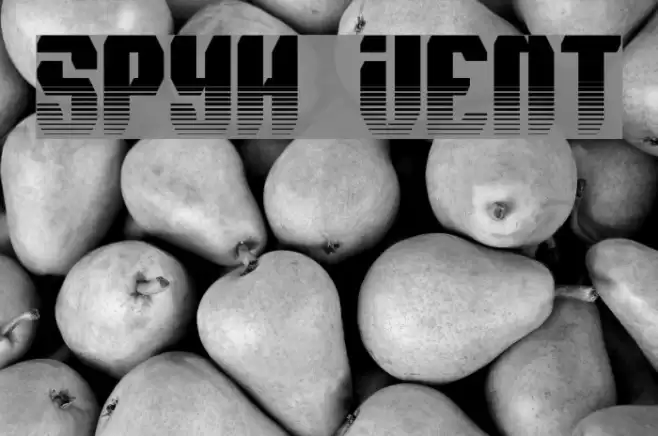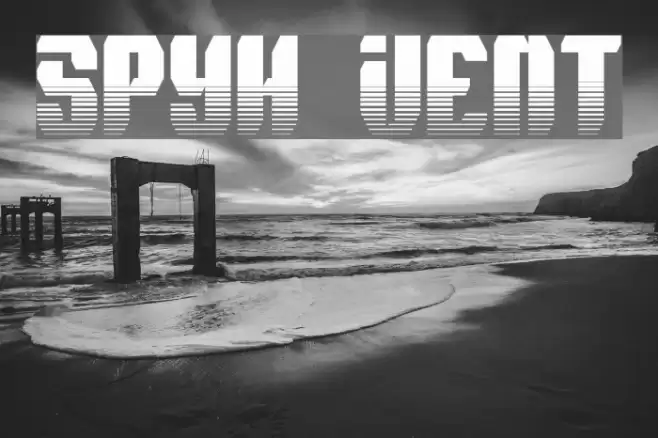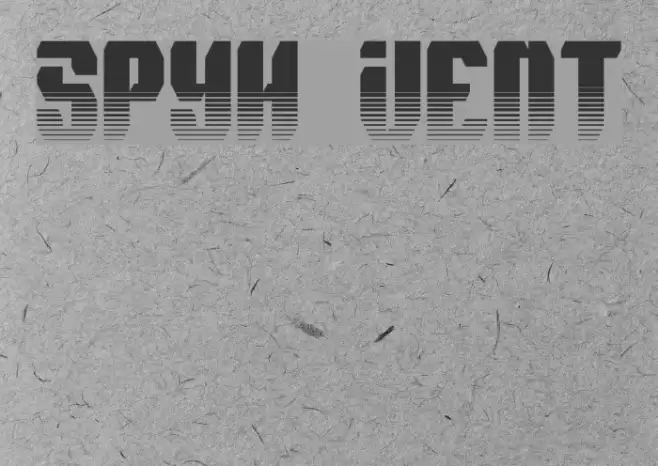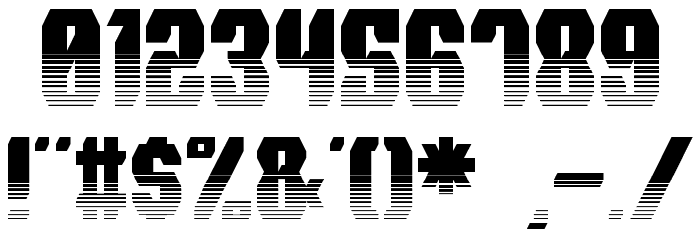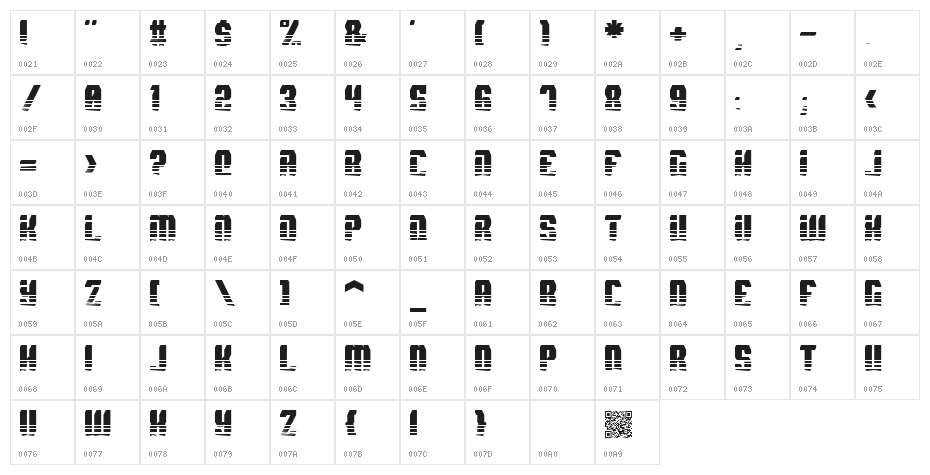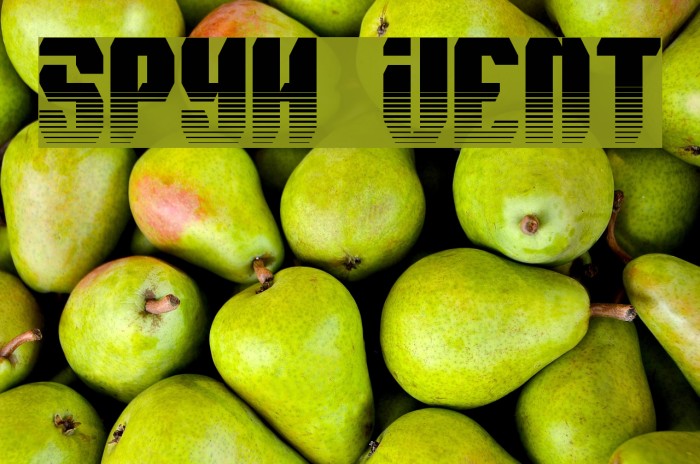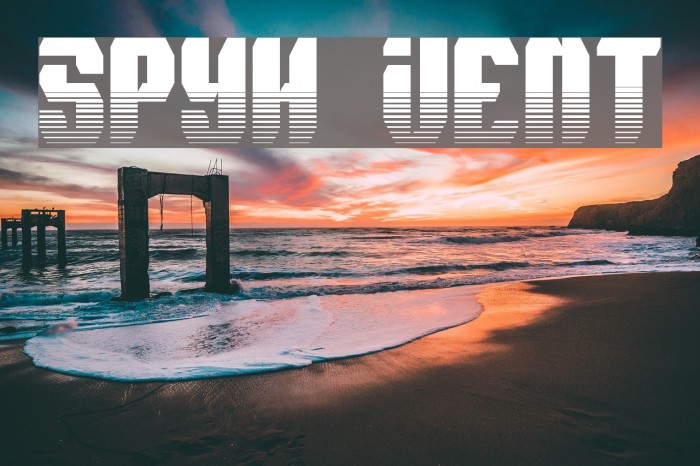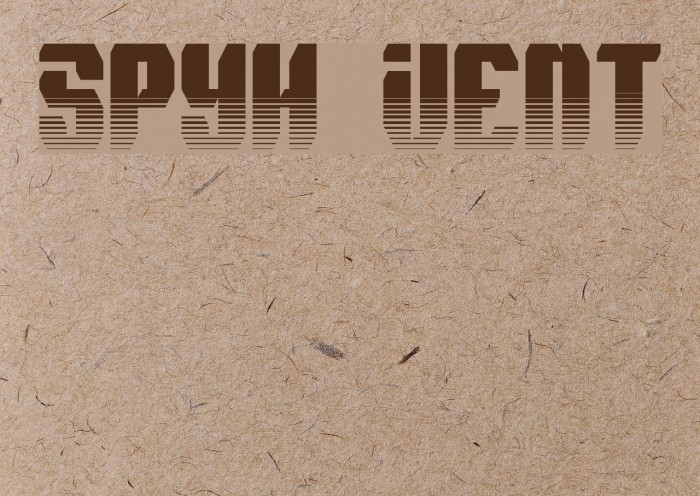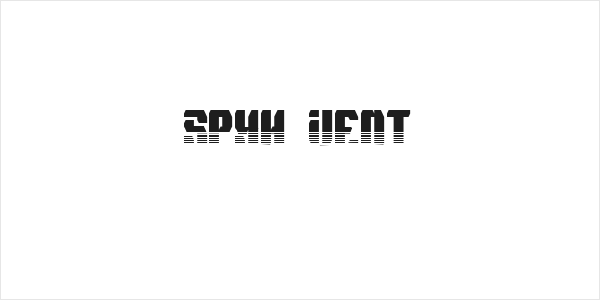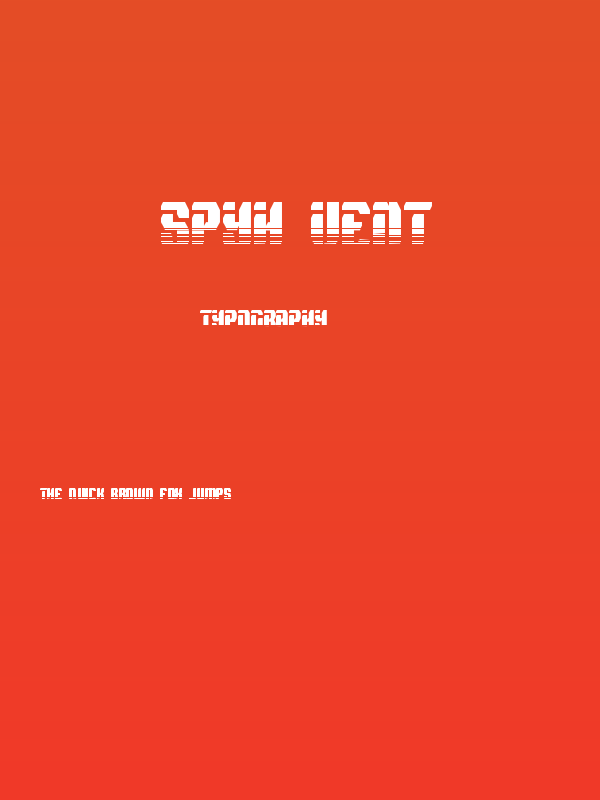
Spyh Vent Font
Spyh Vent Description
This font features a bold, futuristic design with a distinctive striped pattern that creates a sense of movement and depth. The uppercase and lowercase letters, along with numbers and special characters, are constructed with a blocky, geometric style. The horizontal lines within each character give it a unique, dynamic appearance, making it stand out in any design. The font's strong visual impact is ideal for projects that require a modern and edgy look. Its structured form and high contrast between the thick and thin lines add to its striking aesthetic.
A bold, futuristic font with a distinctive striped pattern and geometric style from Uncategorized fonts.
- Proposed Projects: Ideal for sci-fi themed designs, video game titles, posters, and branding that requires a modern and dynamic look.